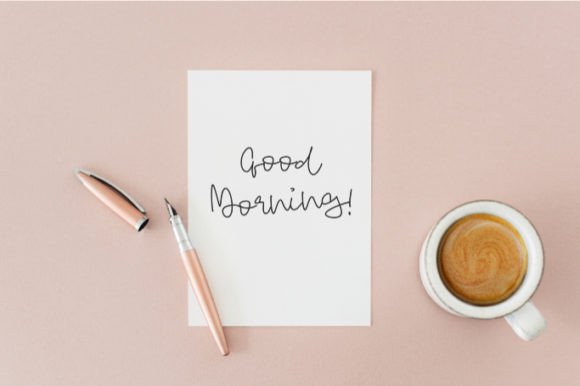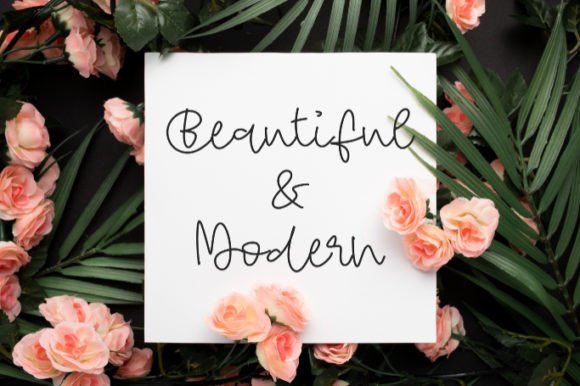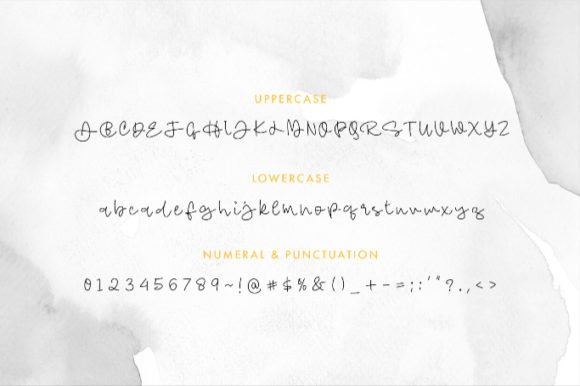
Introduction to Sia Romance Font
Sia Romance is an exquisite handwritten font, masterfully designed to become a true favorite.
Key Features of Sia Romance Font
Why Choose Sia Romance Font?
Sia Romance Font offers exceptional quality and versatility, making it a valuable addition to your design toolkit. Whether you’re creating for personal projects or commercial use, Sia Romance Font delivers professional results.